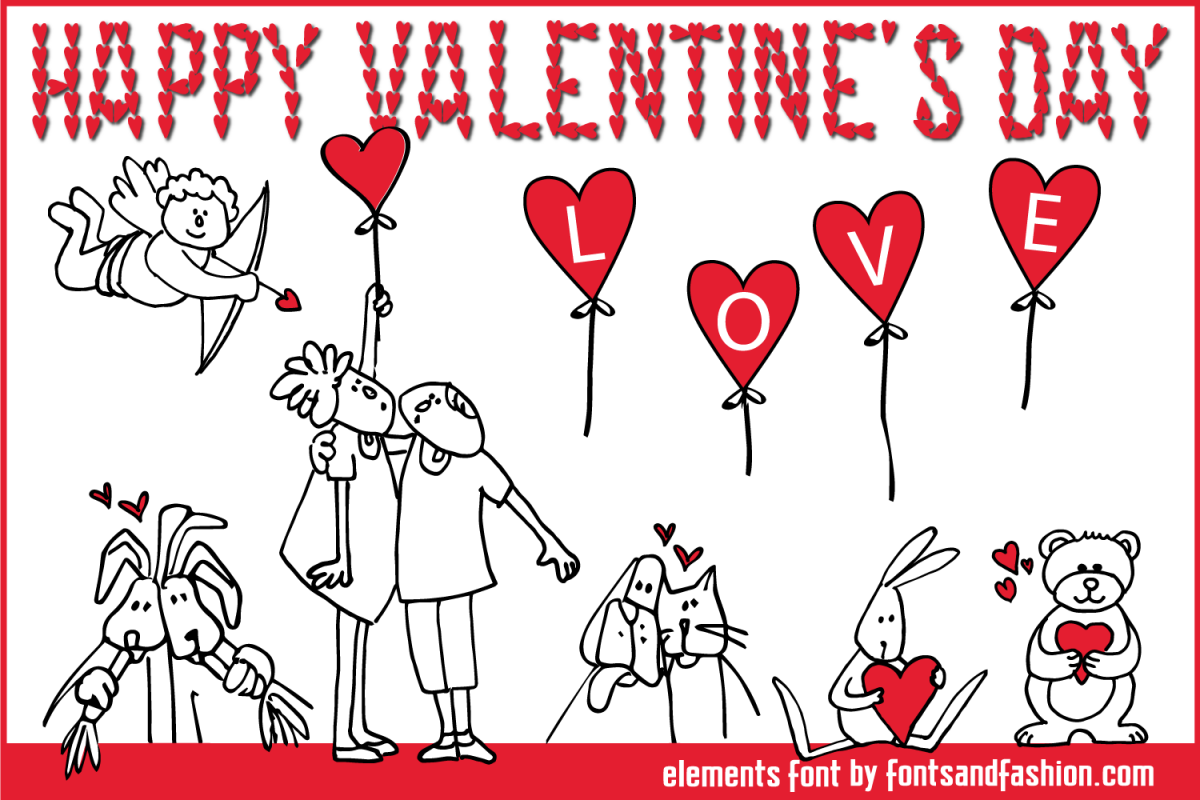
Happy Valentines Day
HAPPYVALENTINESDAY-Regular
"HAPPY VALENTINES DAY"  is our lovely elements font ispirated to St. Valentine.
Enjoy yourself with our cute collection of 75 decoration elements as complements for your love cards or for any other type of artwork.
..."LOVE IS IN YOUR HEART NOT TO STAY, BUT TO BE SHARED"....